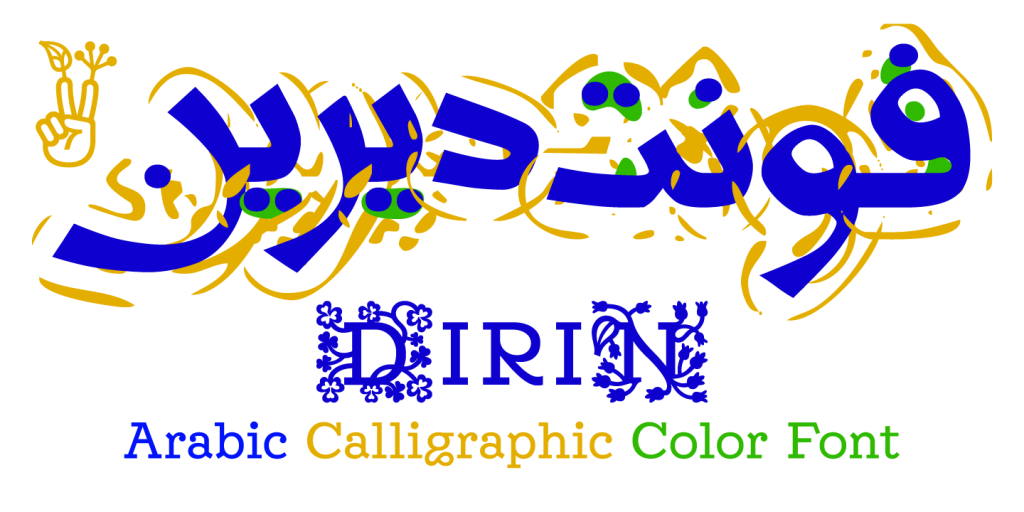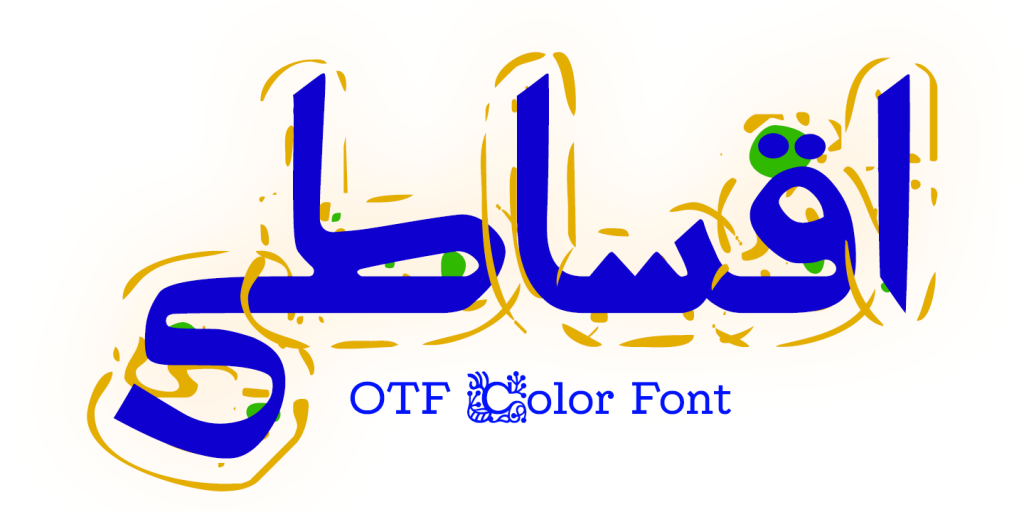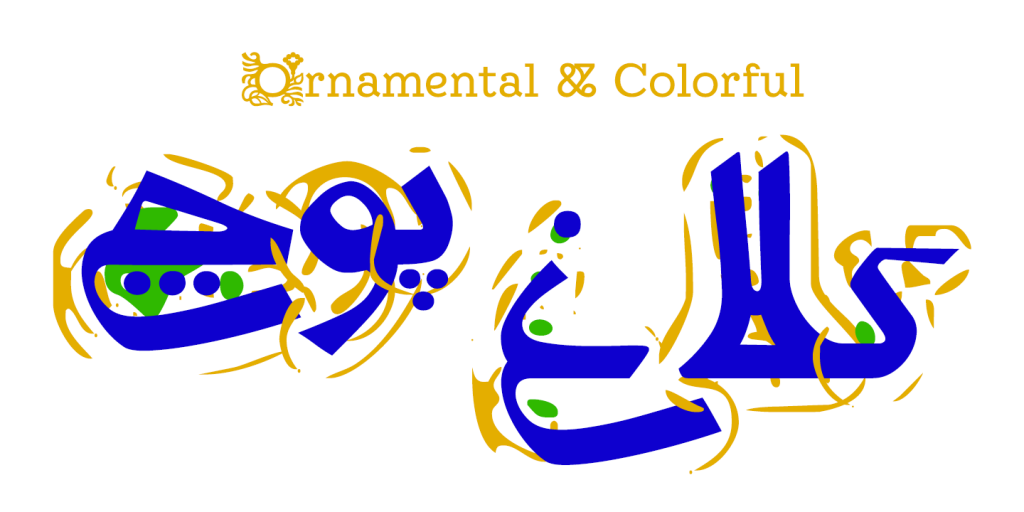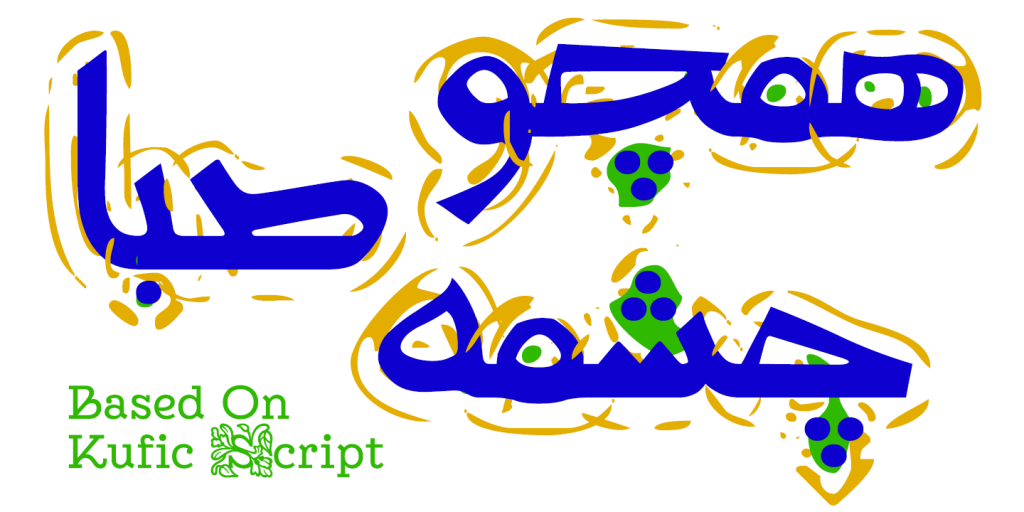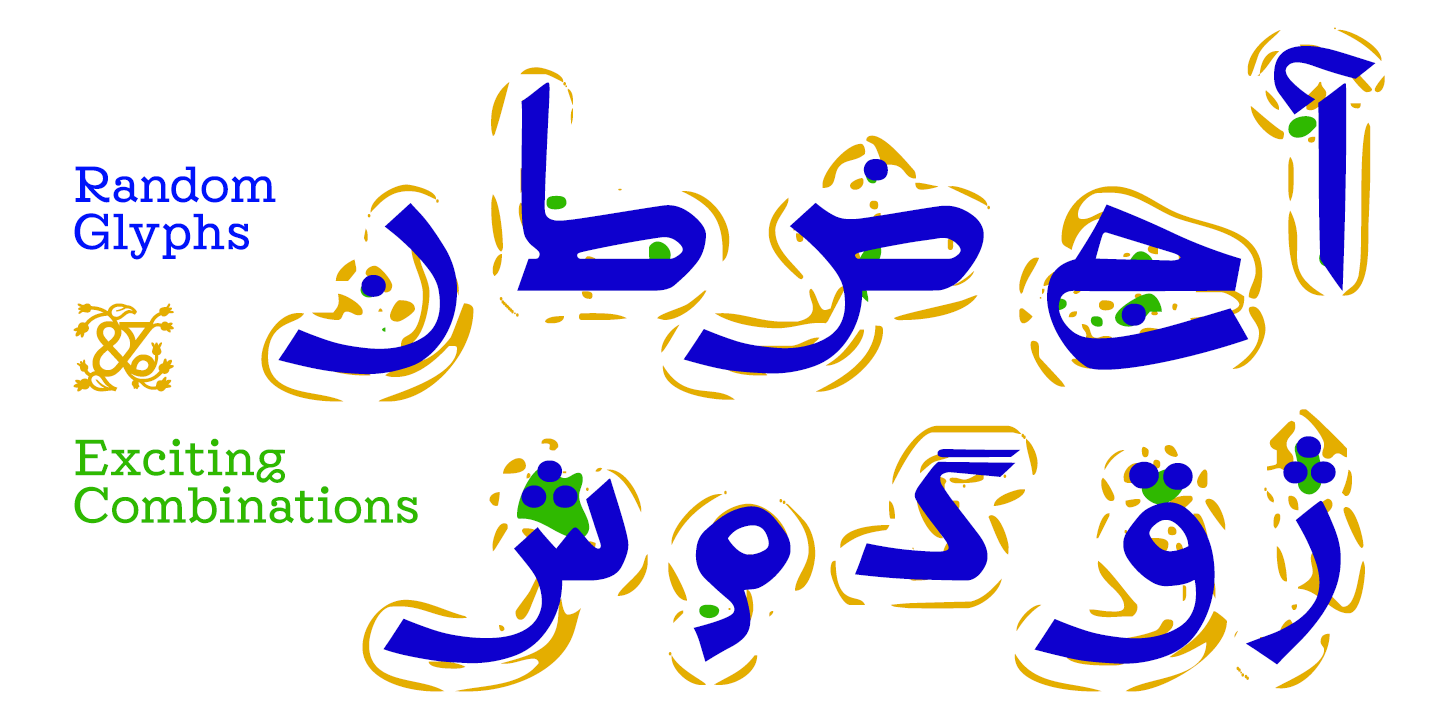
This calligraphic typeface is based on the forms of the Piramouz script and is called Dirin.
A brief look at Avestan, Pahlavi, and Kufic scripts suggests a historical connection between them. Many researchers believe that the roots of Kufic, Naskh, and Ta’liq can be traced back to Pahlavi. Piramouz itself was a script associated with Iranian writing traditions during the Sasanian period, and its flowing connections and movements share noticeable similarities with early Kufic forms.
Dirin, however, is not simply a historical revival. It is a multicolor font. I have written about multicolor typefaces before on this site: fonts whose letters contain built-in color layers and decorative forms.
The palette combines navy blue, gold, and green, with the gold and green layers acting as ornamental accents. These decorative forms add texture and pattern to the letters, carrying the Piramouz script into a more contemporary visual world. The colorful, irregular details make the characters feel less like historical artifacts and more like living forms with a new identity.
I’ve mentioned before that a sense of randomness is often present in my type design process, and that idea appears here as well. The decorative motifs—especially the green layer—are generated in an intentionally improvised way. This controlled unpredictability helps the viewer feel that they’re seeing something more dynamic than a single static font.
The rest is best experienced through the images themselves.